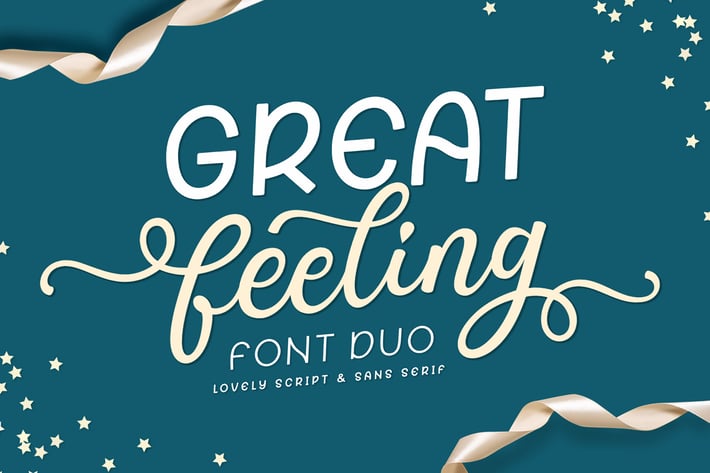
Great Feeling Font Duo
Great Feeling duo is a match made in heaven, the authenticity of the script perfectly complements the sans’ style. Combining these two fonts on your next design will give your next design a magical and playful feel.
This versatility means that this font can be used in a wide variety of applications from headlines, to branding – the only limit is your imagination!